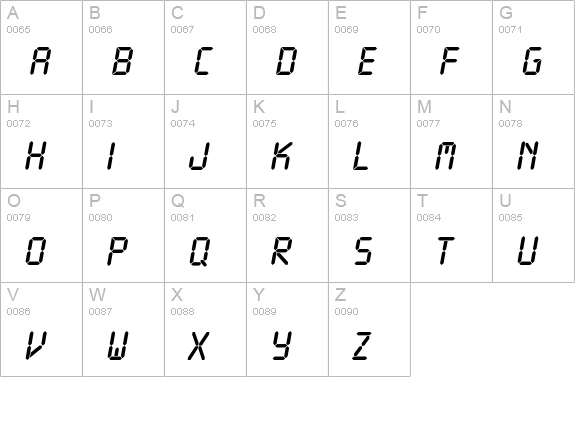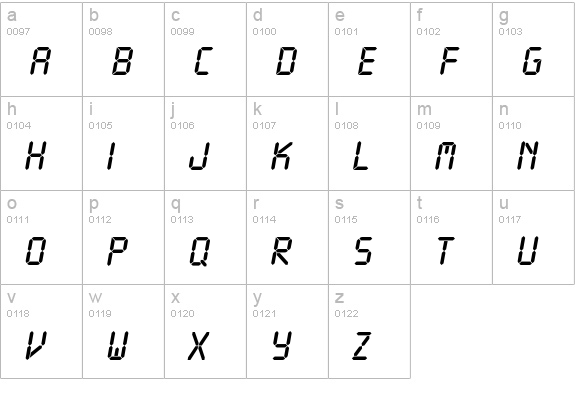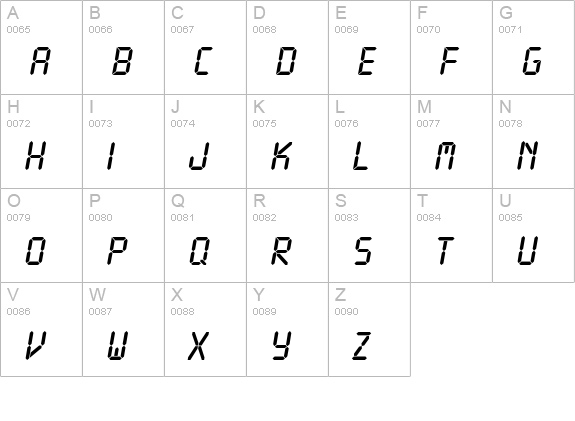
L.C.D. Italic Font Details
L.C.D. Italic is a distinctive, italic variant in the L.C.D. typeface family \xE2\x80\x94 well suited to design and typography projects.
Introducing L.C.D. Italic font, a sleek and modern typeface that effortlessly combines sophistication with a touch of futuristic flair. Designed for those seeking a bold and contemporary look, this font is perfect for digital displays, tech-oriented designs, and anything that demands attention. With its sleek, slim letterforms and unique italics, L.C.D. Italic adds an air of elegance to any design project. Whether you're creating a cutting-edge website, designing a high-tech logo, or crafting eye-catching advertising materials, this font is guaranteed to make a lasting impression. But what truly sets L.C.D. Italic apart is its availability. Unlike other premium fonts, L.C.D. Italic is freely available to download at FontsMarket.com. Yes, you read that right – this exceptional font can be yours with just a few simple clicks, without any cost. Now you can enhance your designs with a professional-grade font without breaking the bank. Don't miss out on the opportunity to incorporate L.C.D. Italic into your next project. Download it today from FontsMarket.com and experience the cutting-edge design possibilities that await. With its sleek aesthetics and the freedom to use it without any restrictions, L.C.D. Italic is the perfect choice for designers, creatives, and anyone who appreciates the power of great typography.